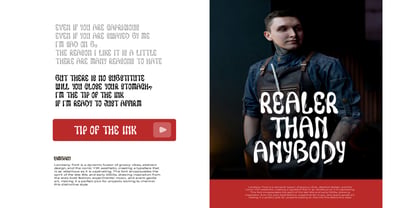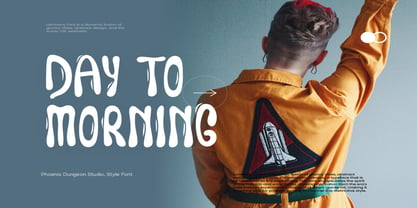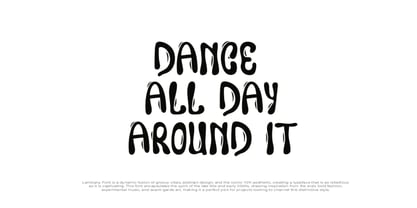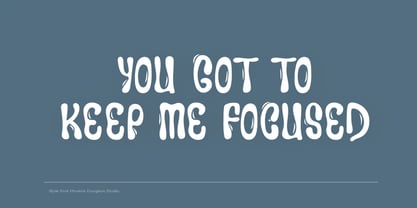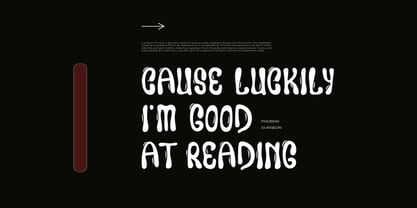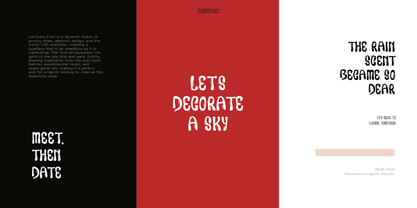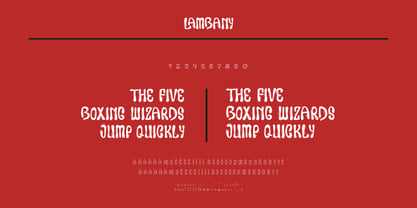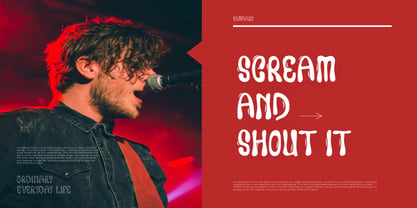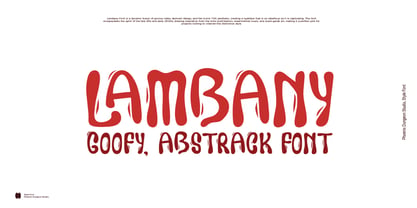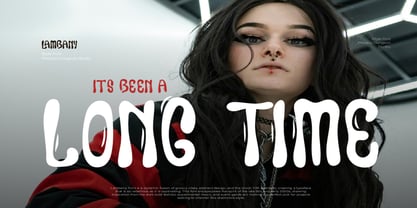
Lambany
by Phoenix Group
The Lambany Font Family was designed by Alif Naufal Muzakki and published by Phoenix Group. Lambany contains 1 styles. More about this family
Lambany is a quirky and abstract display font with a playful twist. Featuring irregular shapes, wavy forms, and a fun, cartoonish vibe, this font is perfect for kids’ projects, comics, posters, party invites, or anything that needs a goofy and bold touch. Lambany stands out with its unique character and brings a creative spark to your typography. Great for experimental, whimsical, and eye-catching designs.